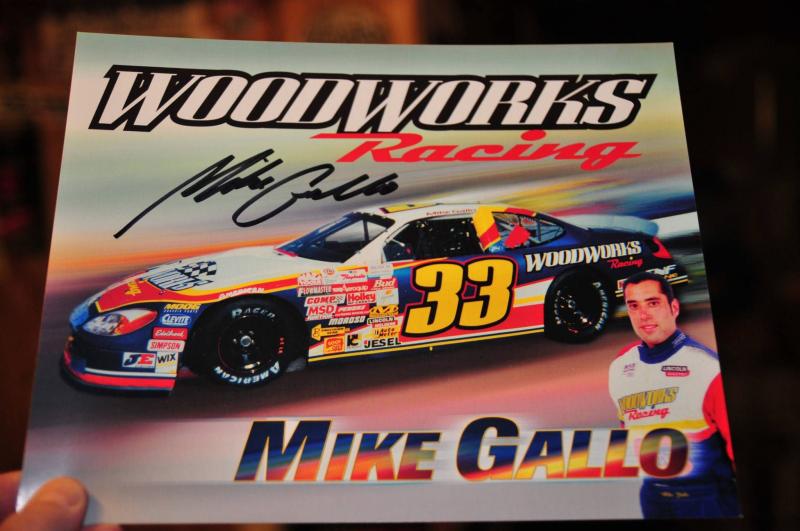
Does anyone know what font this is. I tried to fix it but still nothing in FMF, probablly didn't do it good enough. (WOODWORKS)I know I have seen this before.
I have found some similar but not an exact match (especially |S| is different in all matches I have found).
OPTICorvinus (Bold) is close enough, but please take care when using OPTI orphan fonts in a commercial project (OPTI is an obsolete type foundry):
Skyline Black (Regular)
by Font Bureau is also similar but |W| is a bit different:
Both fonts require to be manually slanted to match your sample.
fivos You are great. Those look right to me, I know you say not exact match but the more I look the more they match- unless my eye's just aren't trained enough to see what you see.